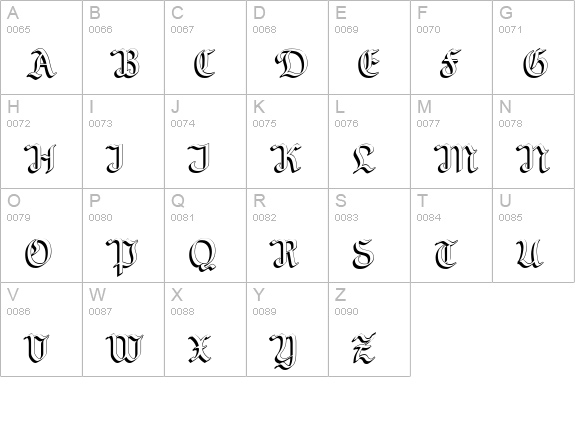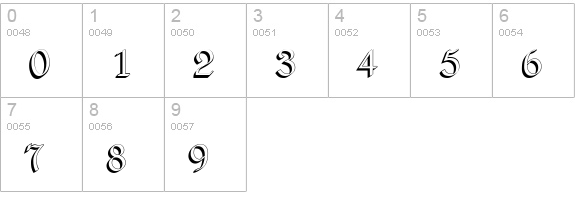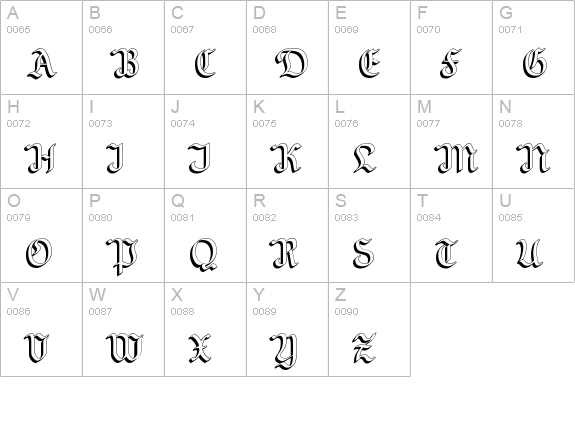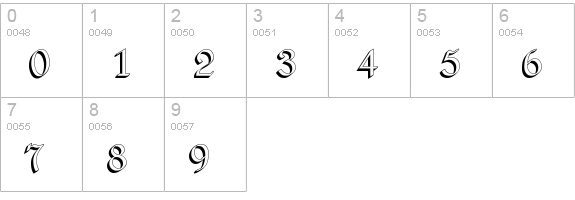
NeuAltischShadLeft Font Details
NeuAltischShadLeft font is a stunning display typeface that embodies a perfect balance between modern aesthetics and classic charm. With its unique shading and elegant curves, this font exudes a sense of sophistication and creativity. Whether used for branding, invitations, or graphic design projects, NeuAltischShadLeft font is sure to make a statement. The best part? NeuAltischShadLeft font is available for free download at FontsMarket.com. So go ahead and enhance your designs with this exquisite font without any cost. Download it now and add a touch of elegance to your projects!